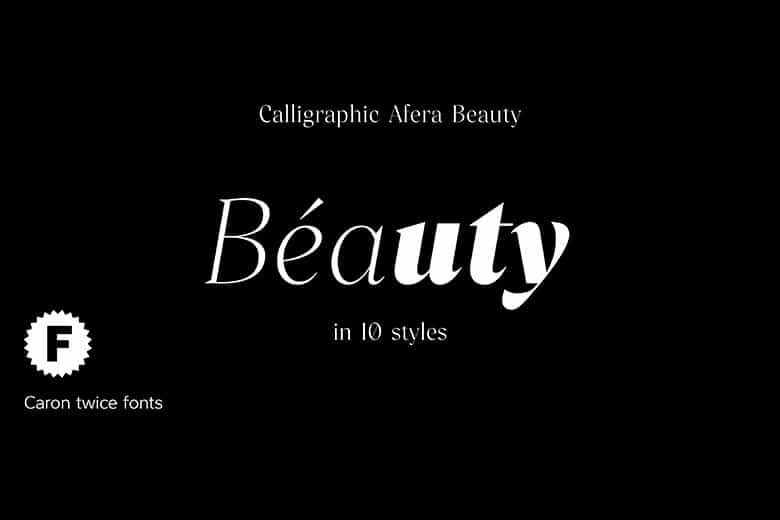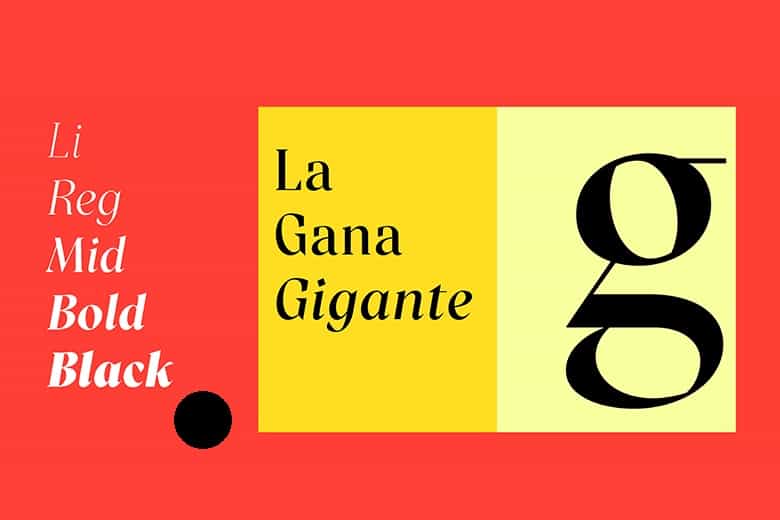
Calligraphic Afera Beauty is a modern serif font. It is a heavy contrasting typeface with a dynamic character derived from drawing tools such as the cut nib that is an aspect of traditional typography. It actualizes its particular stance into the execution of each character.